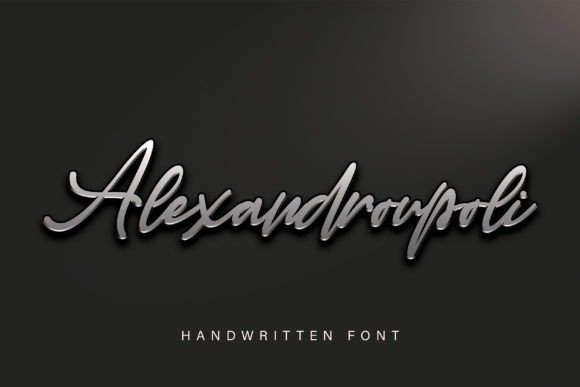
Alexandroupoli Handwritten Font
Alexandroupoli Font is a gorgeous and simple handwritten script font; contemporary and fashionable, Alexandroupoli  looks great for a large range of project types.
This elegant font is legible and looks great as a headline or in body text. This font will perfect for many different project for blogging, social media, branding, wedding invites, cards etc.